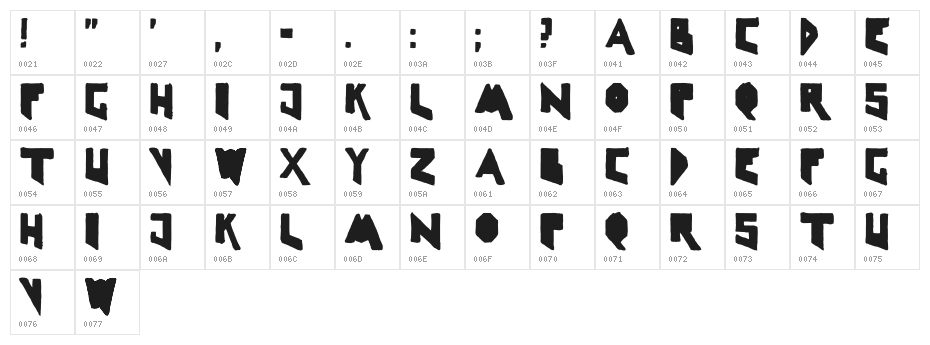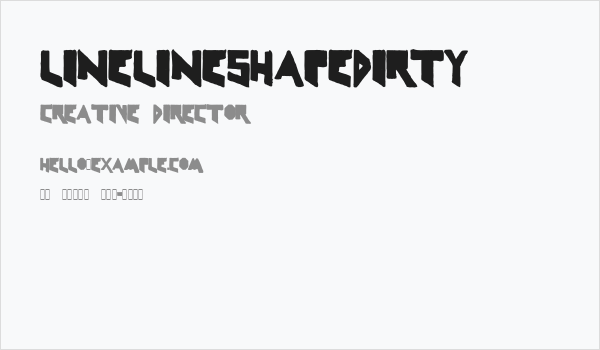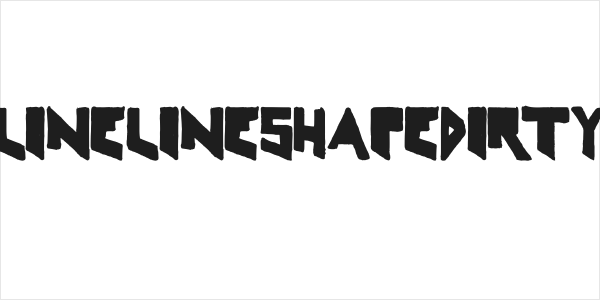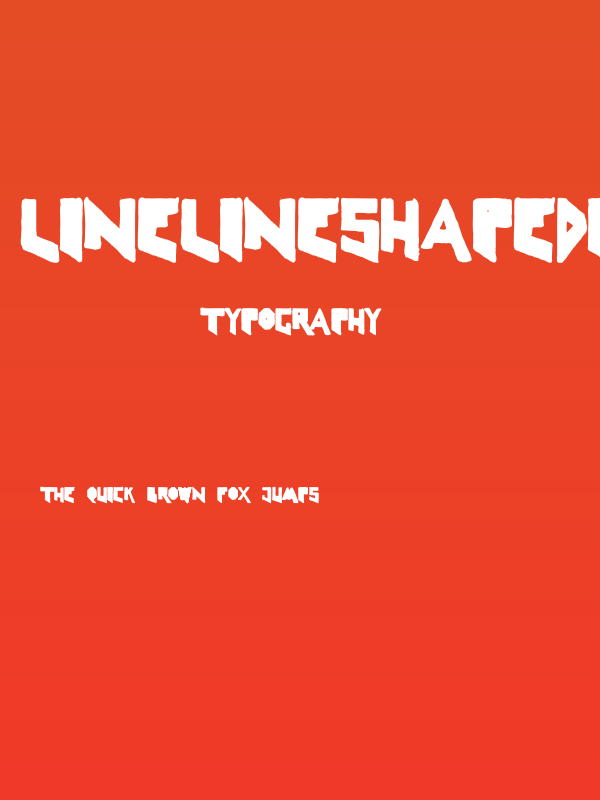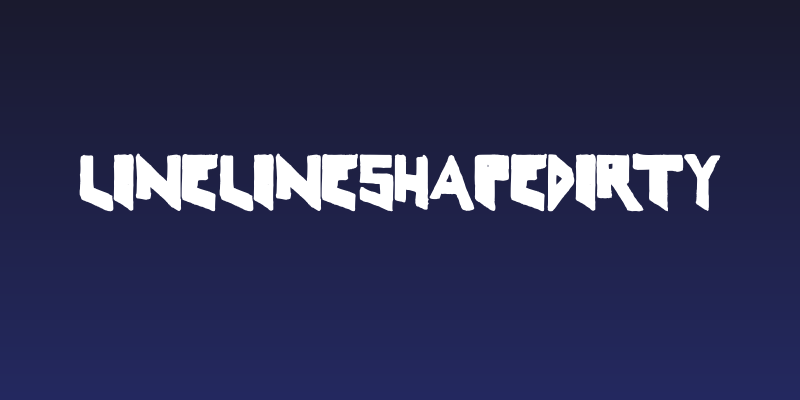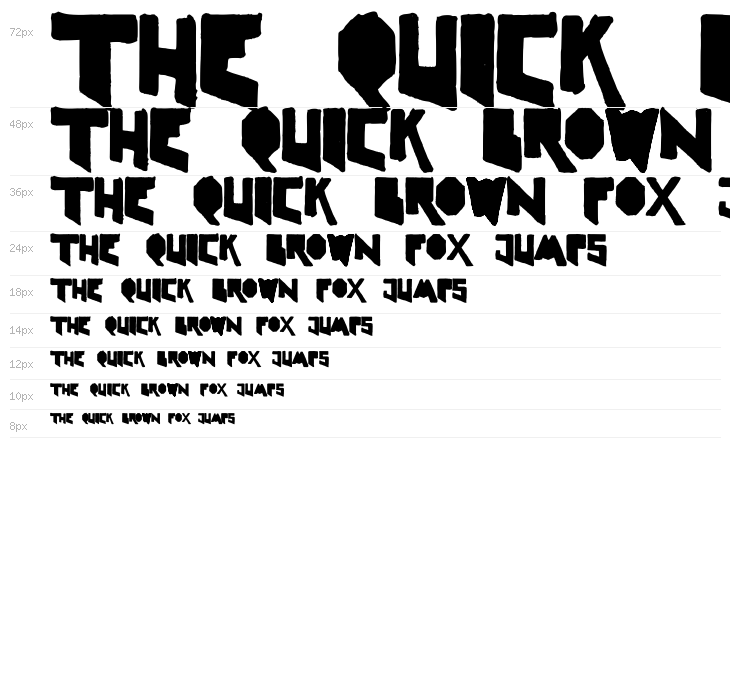
LineLineShapeDirty Font
LineLineShapeDirty Description
This font features a bold and edgy design with a distinctly angular and geometric style. The characters are heavily stylized, with sharp, jagged edges and a rough, almost hand-drawn appearance. The uppercase letters are prominent and commanding, while the lowercase letters maintain the same boldness, creating a cohesive look. The numbers and special characters follow the same design principles, ensuring consistency throughout. This font's unique and aggressive style makes it stand out, perfect for projects that require a strong visual impact.
Overall StyleModern, Edgy
Use CaseHeadlines, Logos, Posters
Proposed ProjectsIdeal for posters, album covers, streetwear branding, and any project needing a bold, edgy aesthetic.